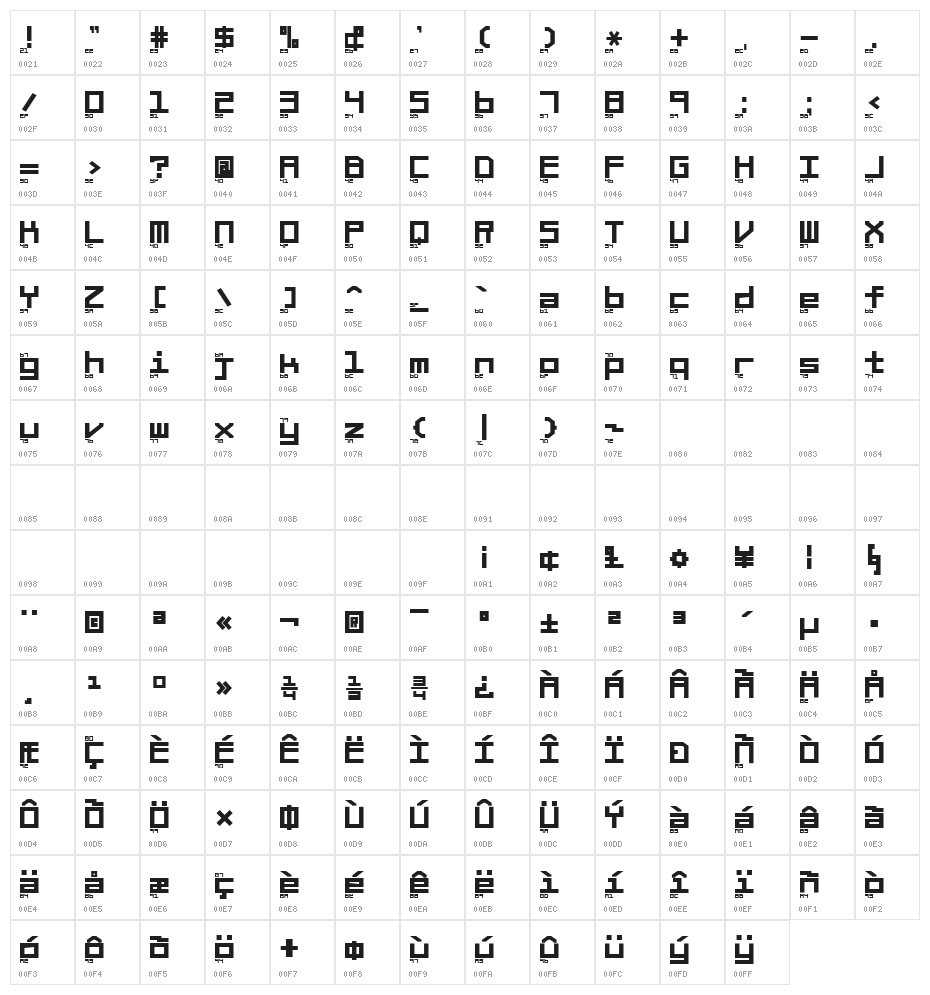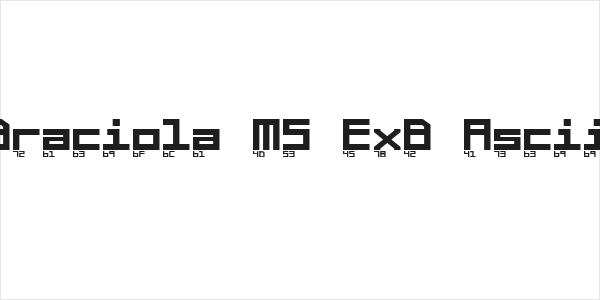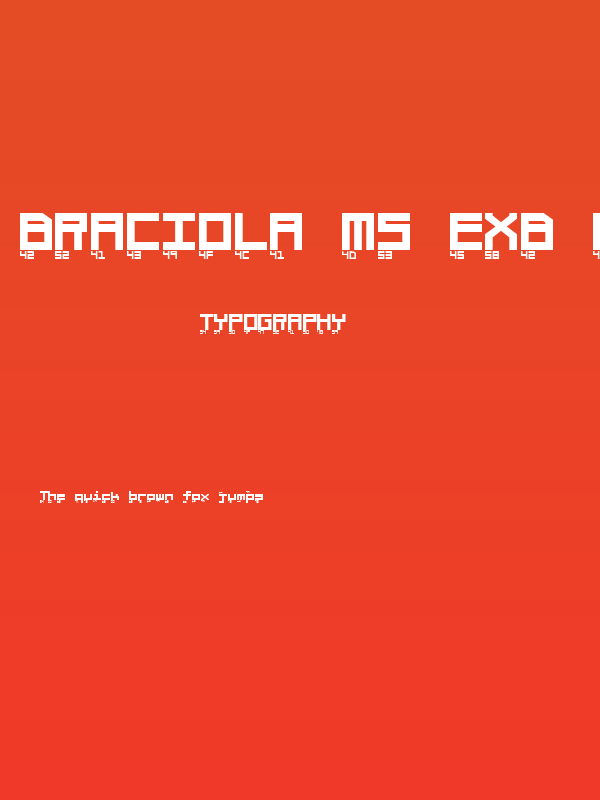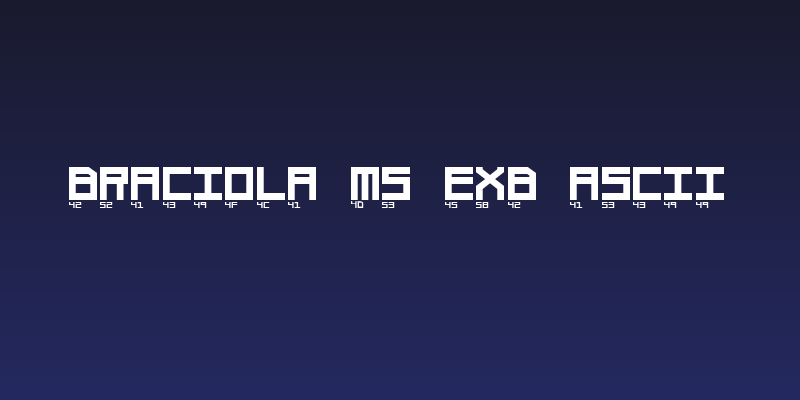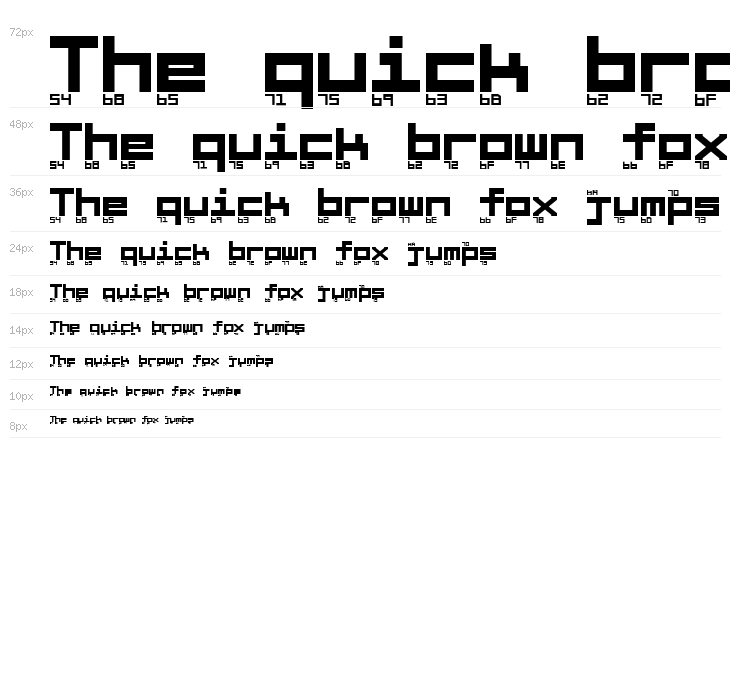
Braciola MS ExB Ascii Font
Braciola MS ExB Ascii Description
This font features a bold and geometric design with a distinct blocky appearance. Each character is constructed with straight lines and sharp angles, creating a futuristic and digital aesthetic. The uppercase and lowercase letters maintain a consistent style, with minimal variation in stroke width, emphasizing a uniform and cohesive look. Numbers and special characters follow the same design principles, ensuring readability and visual impact. The font's structure is reminiscent of early digital displays, making it ideal for projects that require a modern and tech-inspired feel.
| Use Case | Logos, Headlines, Digital Interfaces |
| Proposed Projects | Ideal for tech branding, digital interfaces, video game design, and futuristic posters. |